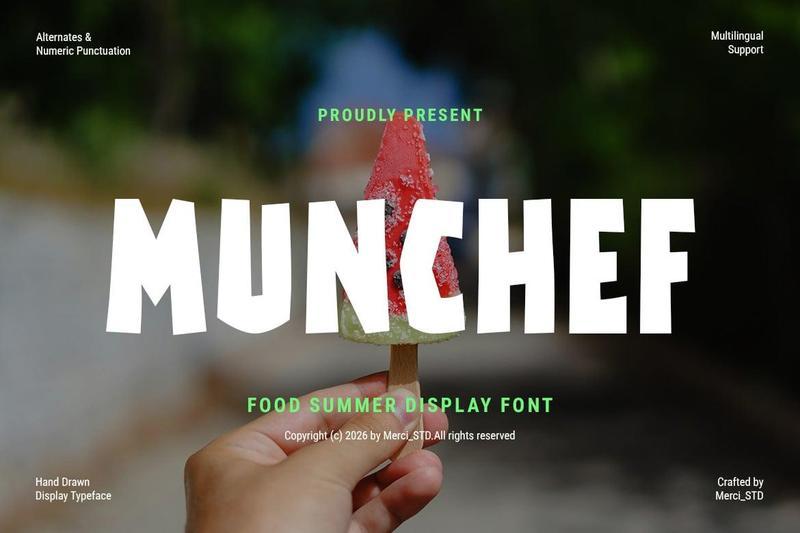
Munchef is a playful food-inspired display font featuring hand-drawn letterforms and a cheerful summer personality. Its bold and friendly appearance makes it perfect for food branding, restaurant menus, snack packaging, children’s products, social media graphics, event posters, and creative promotional materials. Designed to capture attention instantly, Munchef adds a fun and delicious touch to any project.
* Uppercase Letters
* Numbers & Punctuation
* Ligature & Alternate Character
* Unique Hand-Drawn Style